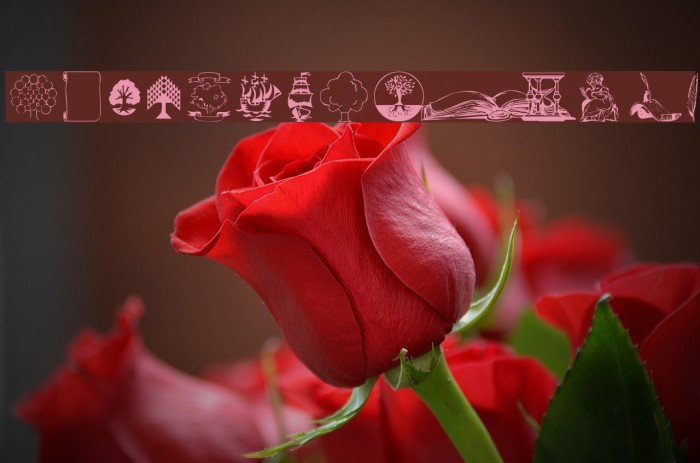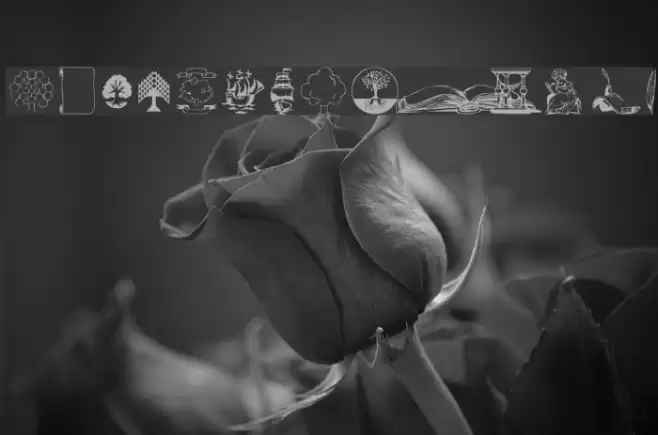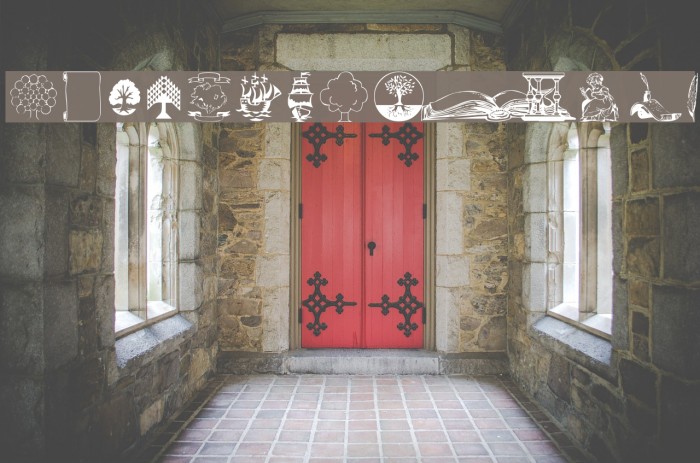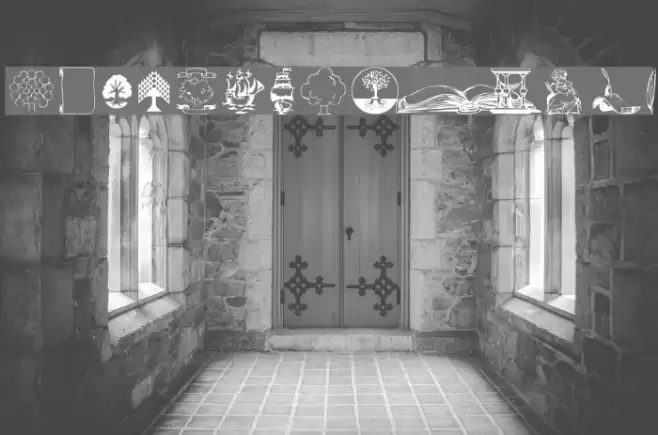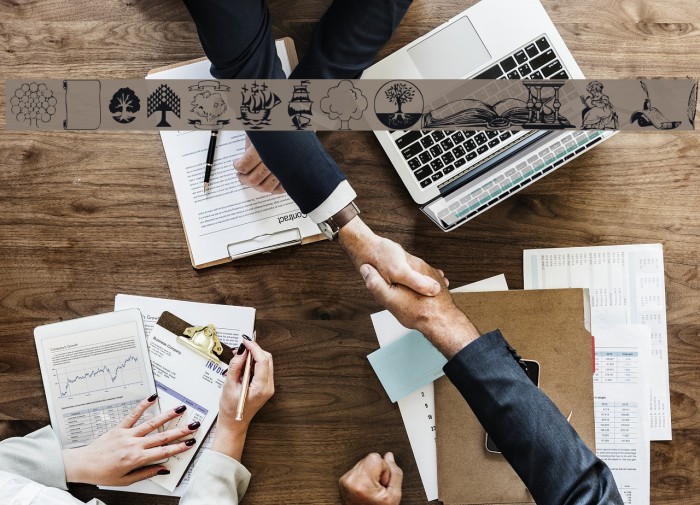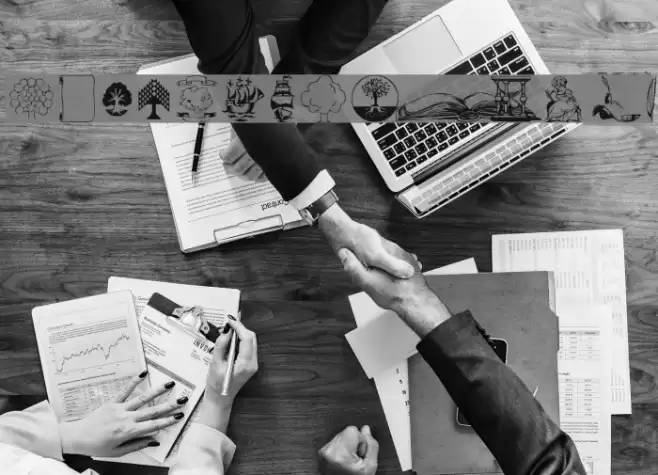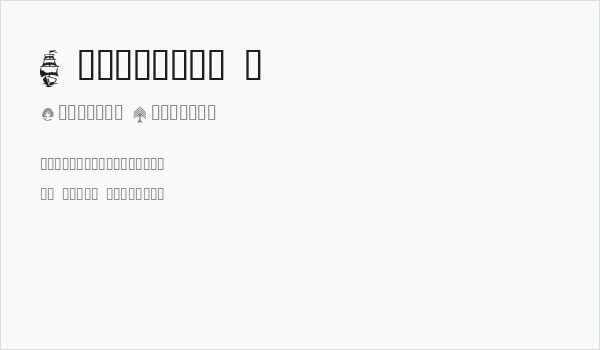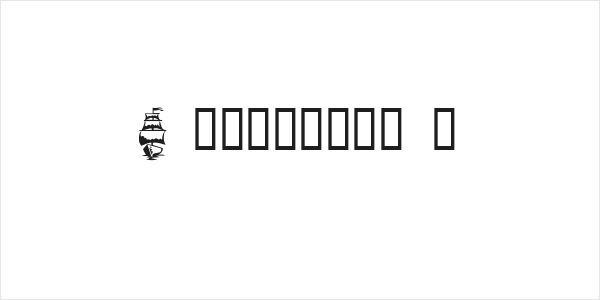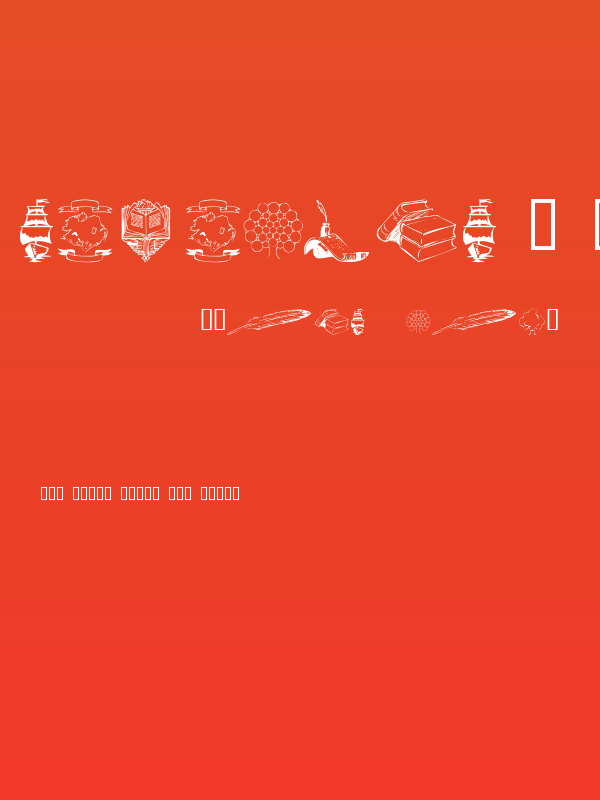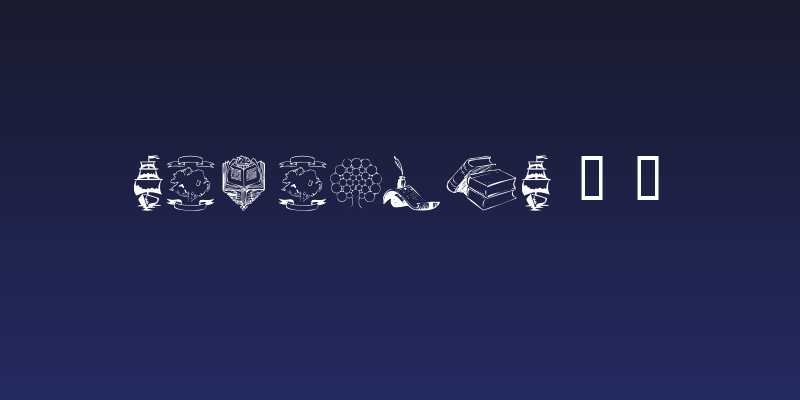
Genealogy 1 Font
Genealogy 1 Description
This is a decorative dingbat font featuring a collection of genealogy-themed illustrations, such as trees, books, ships, hourglasses, and quills, rendered in a detailed black-and-white line art style. The glyphs are pictorial rather than alphanumeric, making them suitable for embellishing documents or creative projects related to family history or ancestry.
| Overall Style | Decorative, Vintage |
| Use Case | Embellishments, Themed graphics, Scrapbooking, Headings |
| Proposed Projects | Family trees, genealogy charts, scrapbooks, historical documents, themed invitations. |